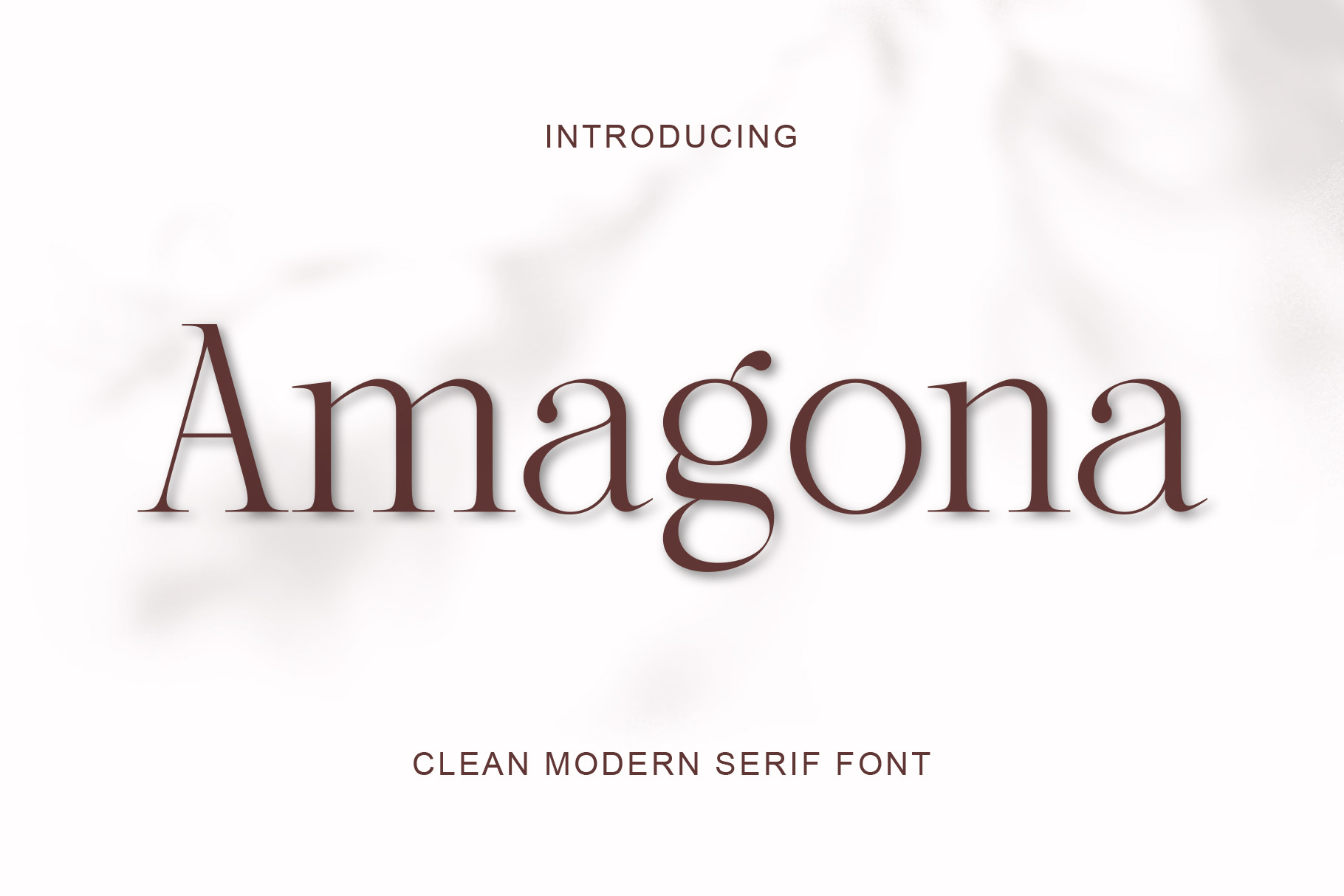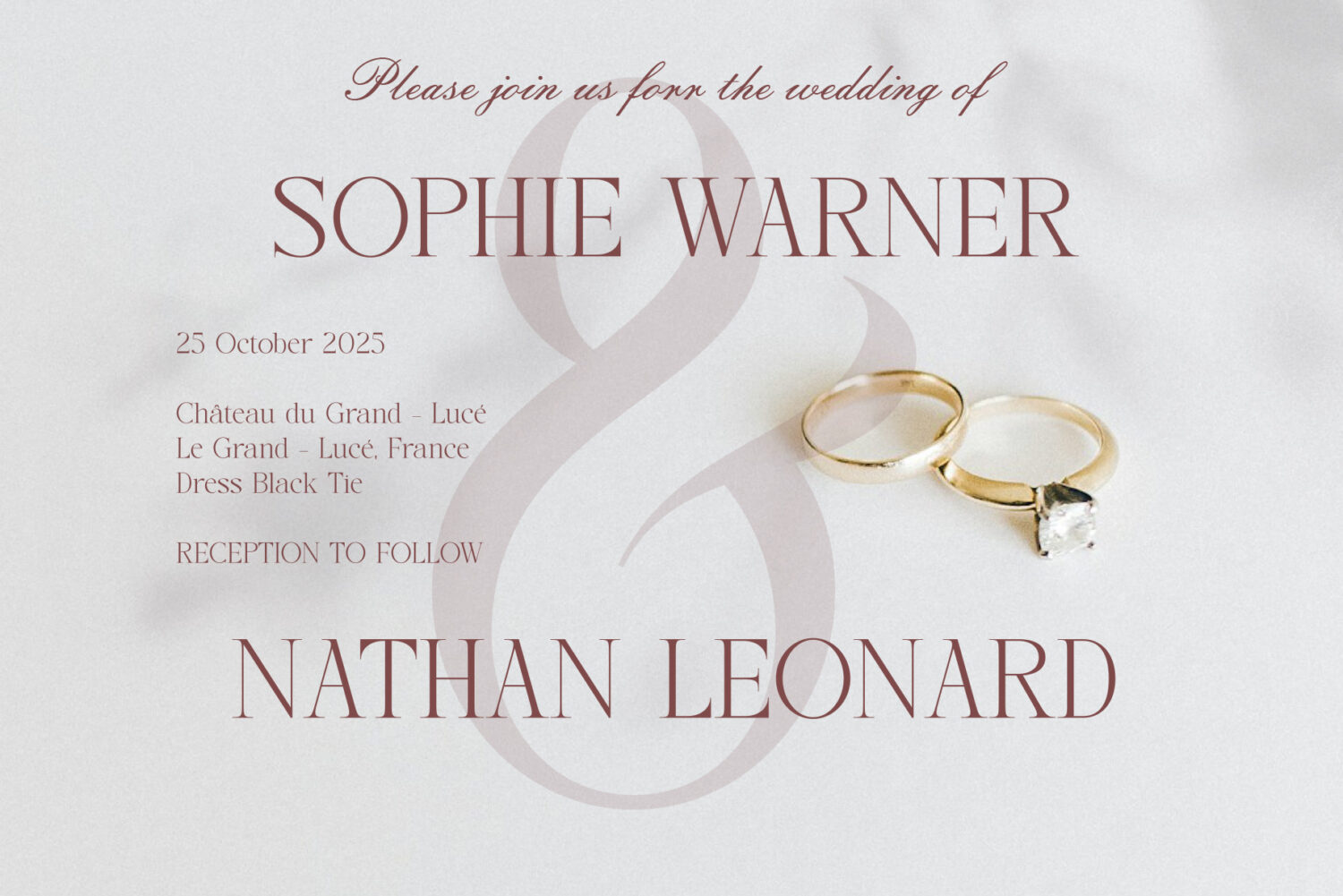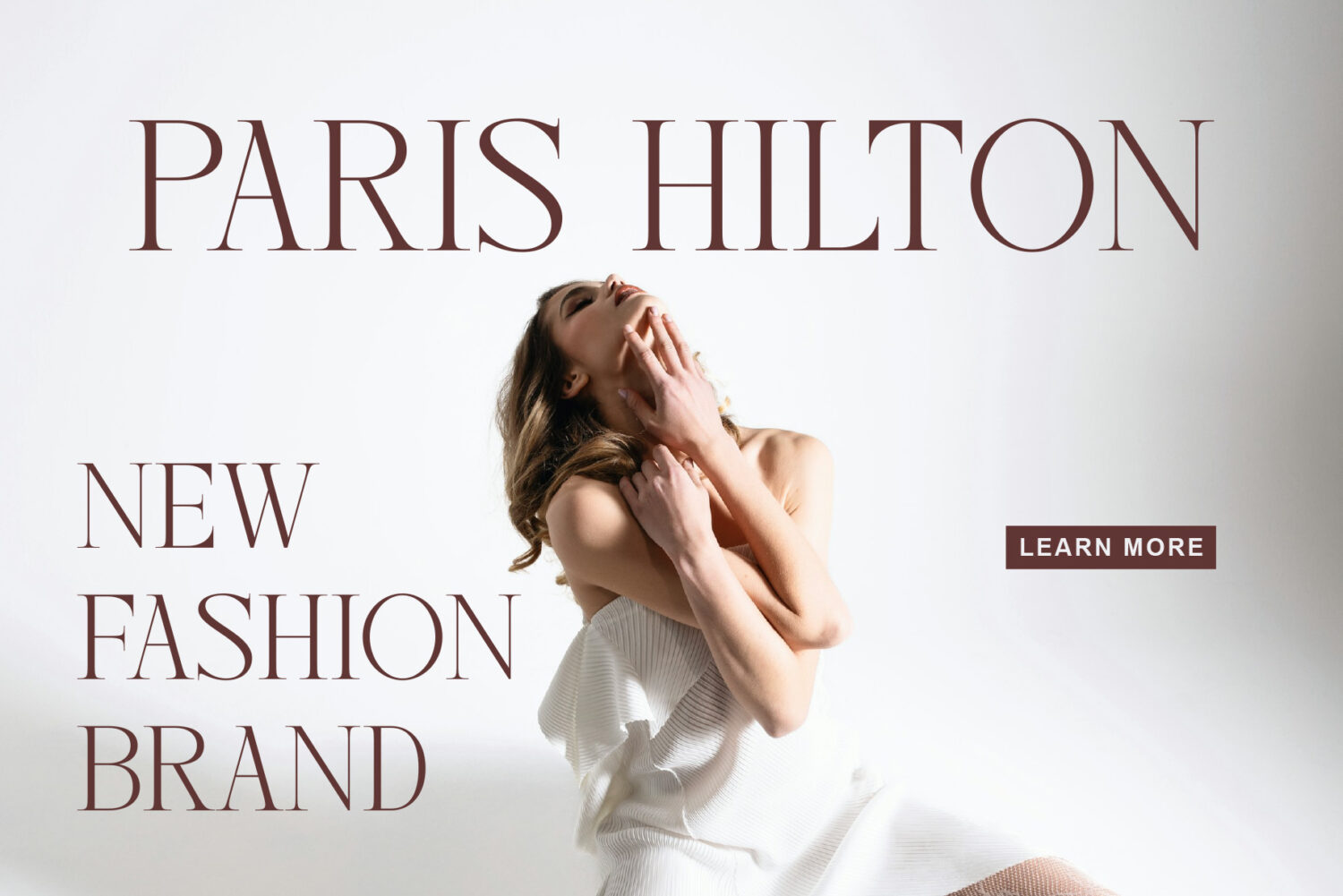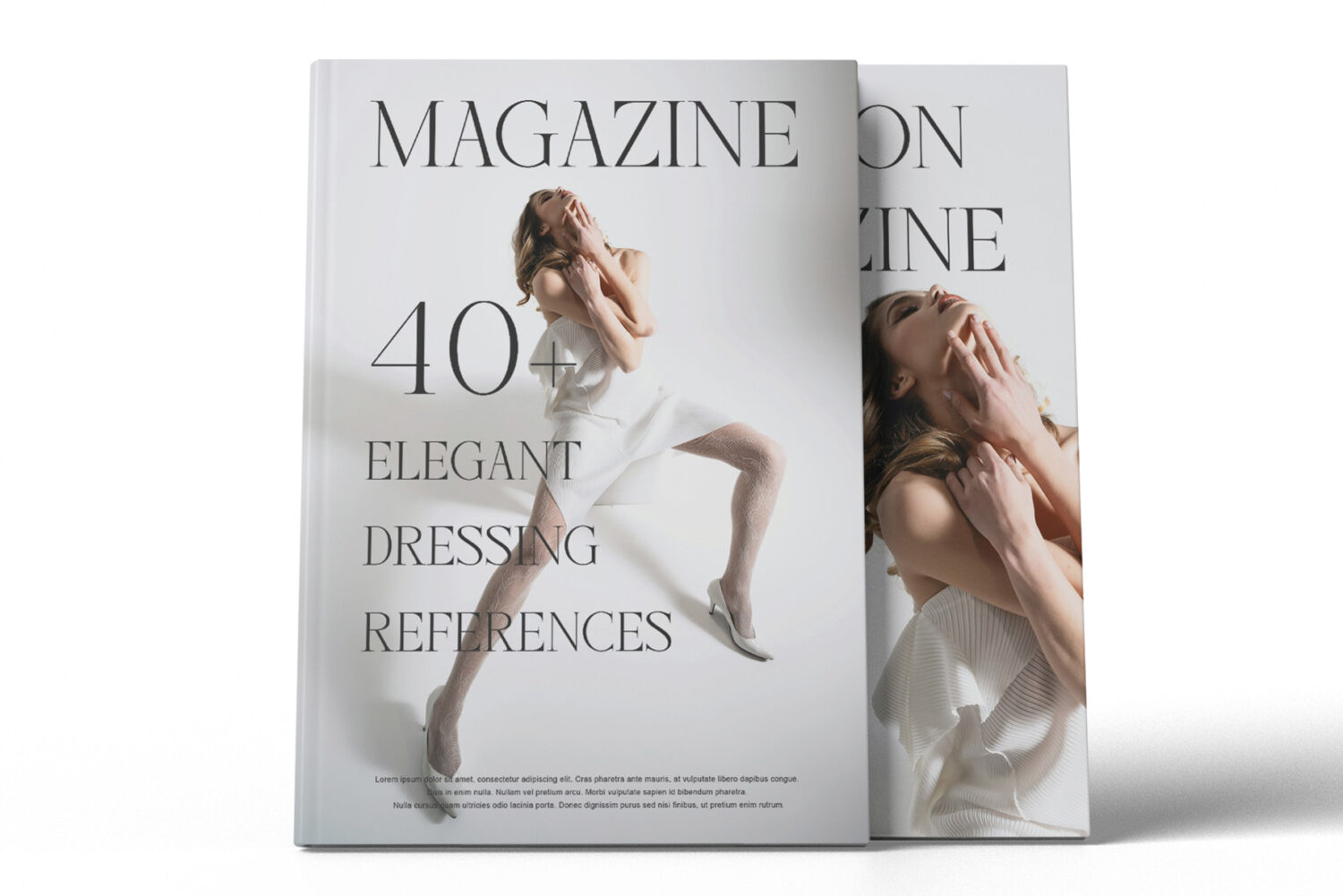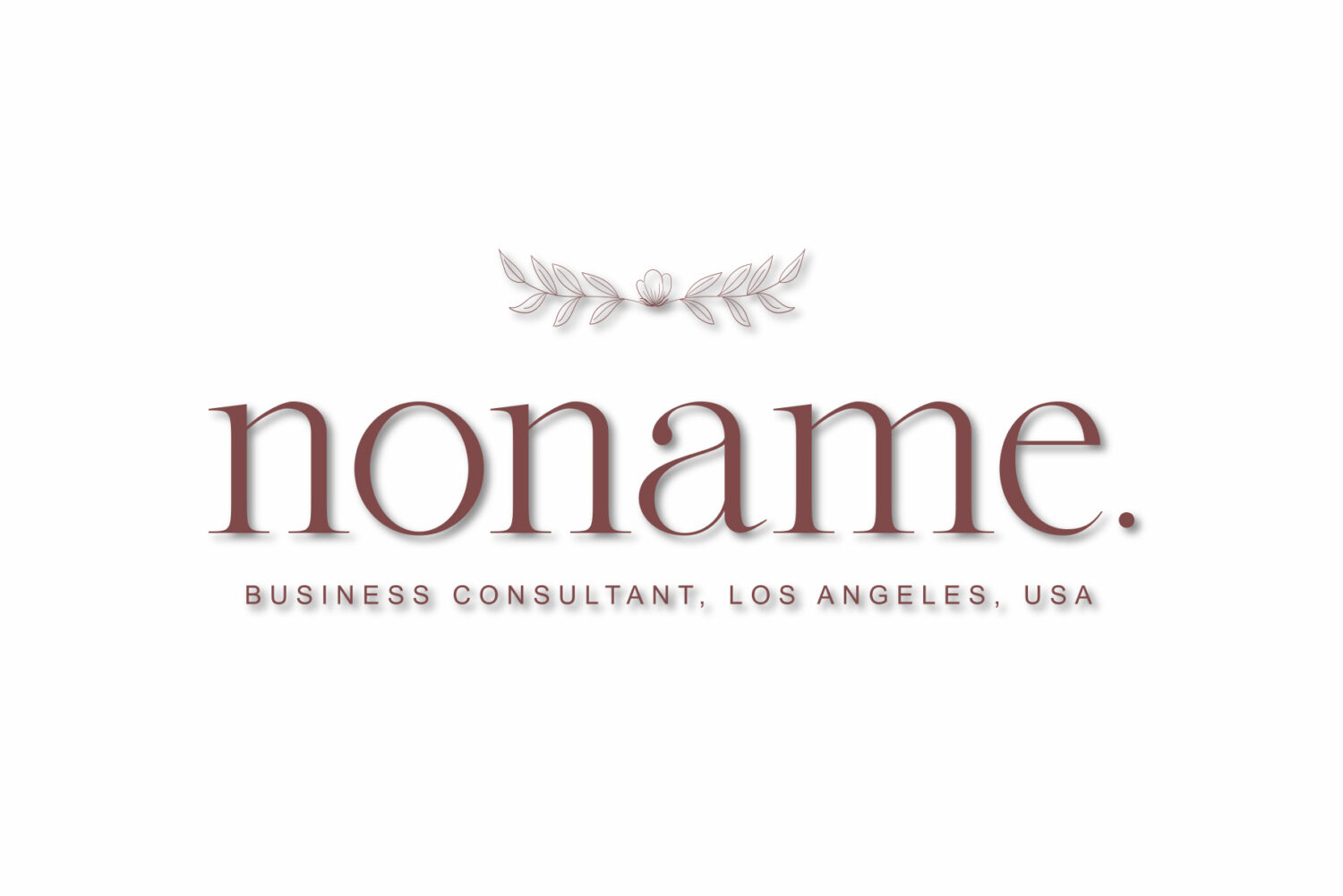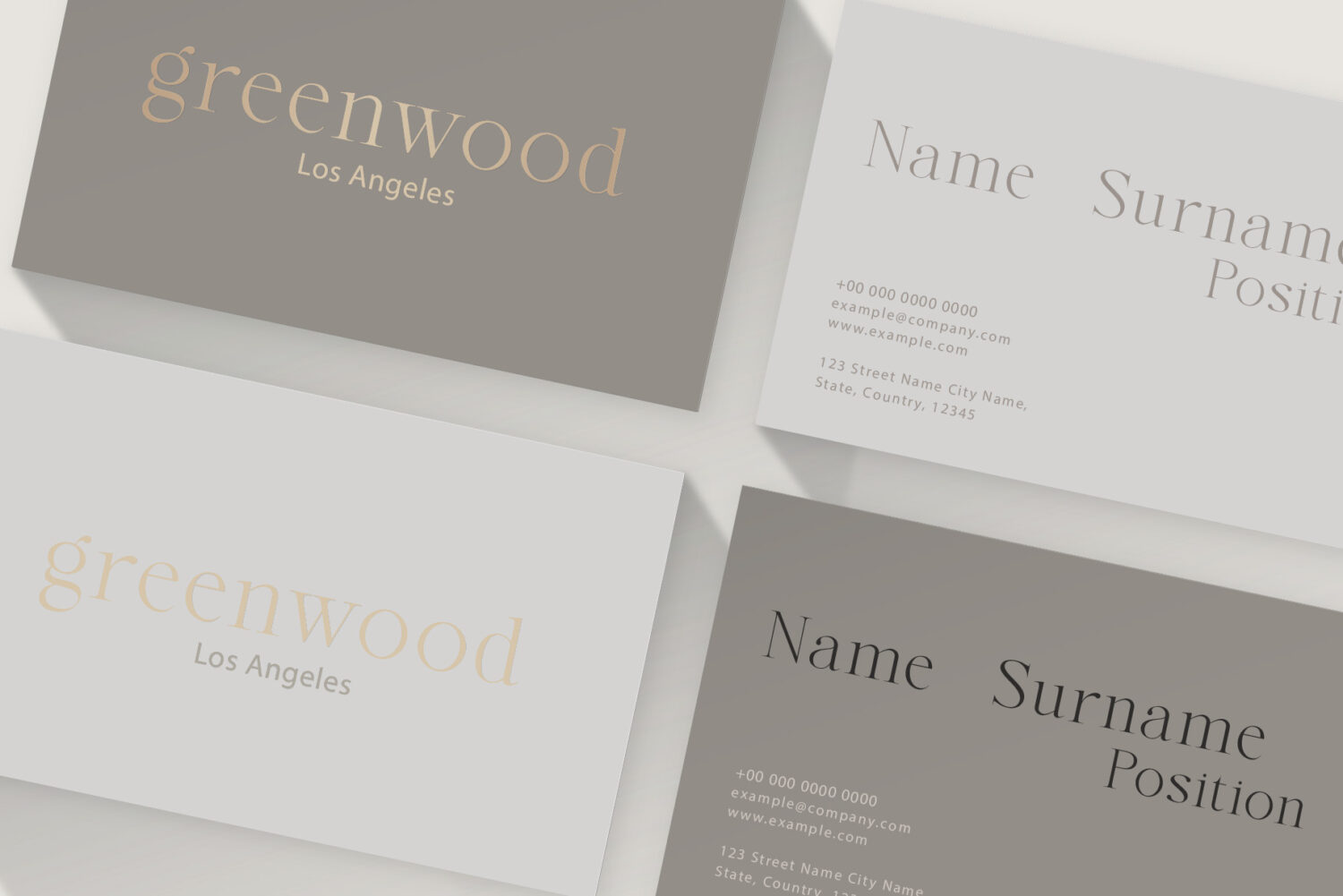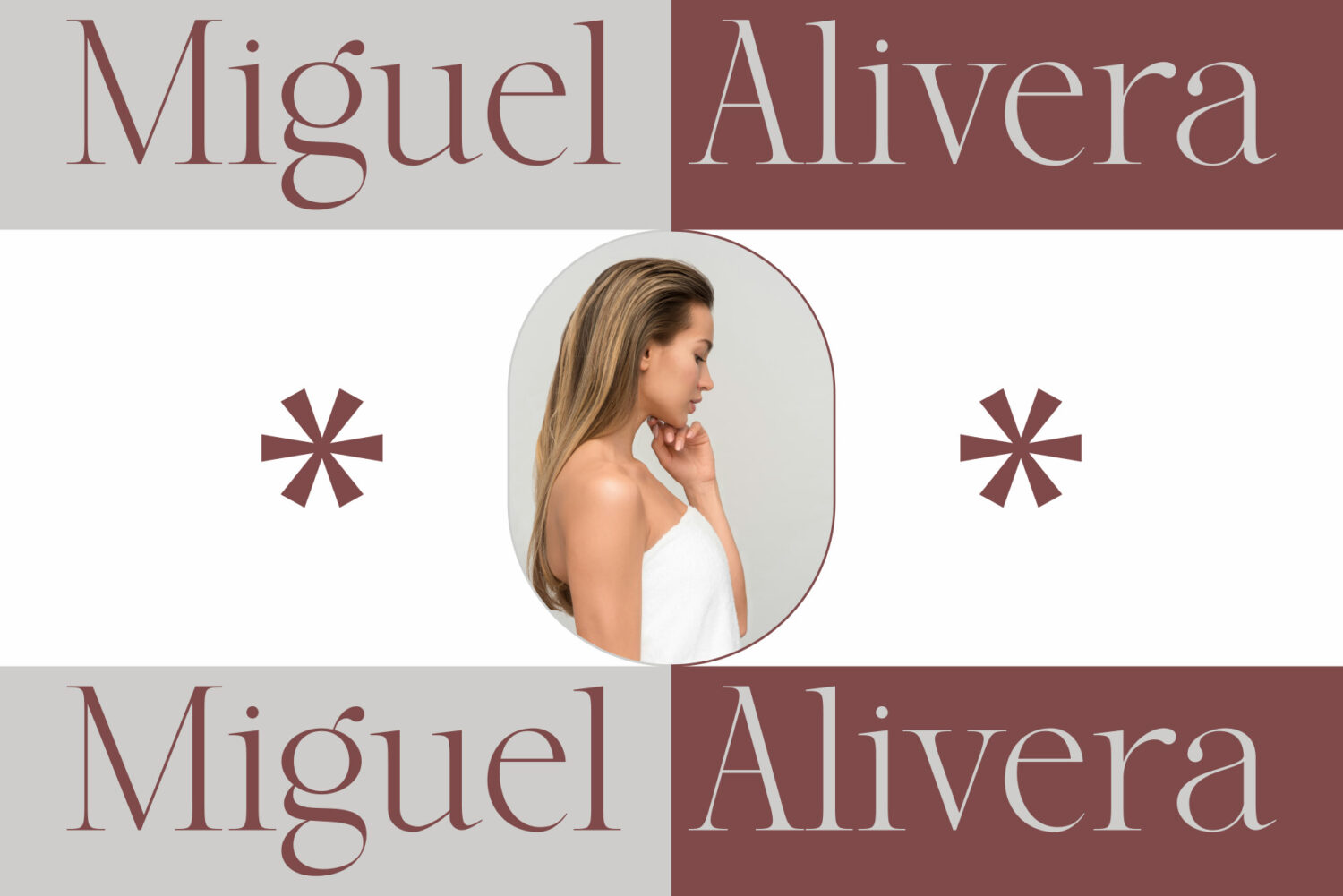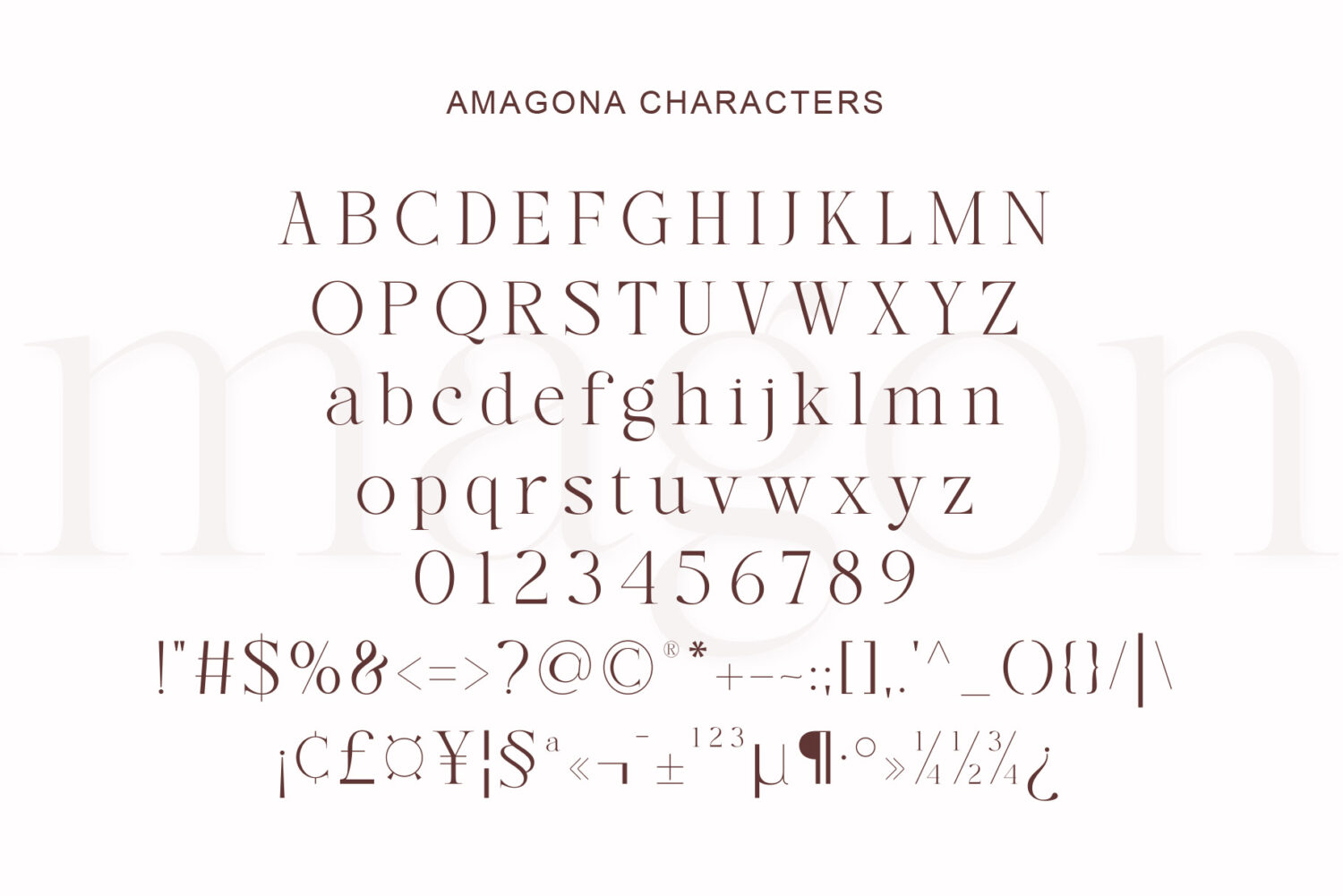
Introducing **Amagona** the elegant, beautiful, and modern Serif. With its modern and minimalist look, Amagona brings a luxurious, classy, ​​and clean style to your projects such as websites, modern logos, brand identities, social media quotes, wedding stationery, magazines, and more!
Amagona features unique and classy capital letters A to Z and also comes with unique alternates and ligatures making Amagona a beautiful font that can be customized for various projects and jobs you want.
Amagona is perfect for: logos, brands, wedding invitations, business cards, greeting cards, posters, magazines, social media, agenda prints, and websites.
Amagona – Clean Modern Serif Font